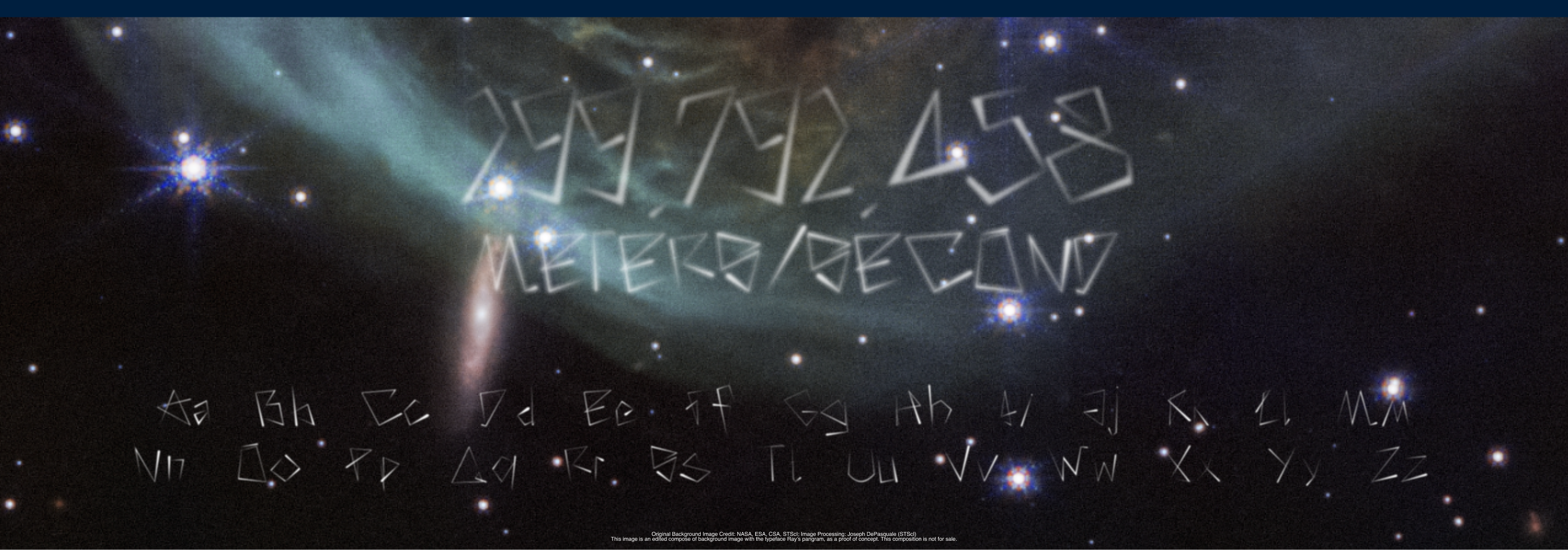
RAY SO-&-SO
About RAY
Ray, a light beam bouncing through the invisible architecture of the void. It leaves glyphs in its wake like refractions of a distant star; particle when caught, invisible wave when released.
Ray is a cerebral network of 26 letters born from the bounce against hidden margins of type, observed in a chanced-upon motion. From microscopic pulse to cosmic stretch, and everthing in between.
Enjoy the process, and let there be rays-and-rays of light.